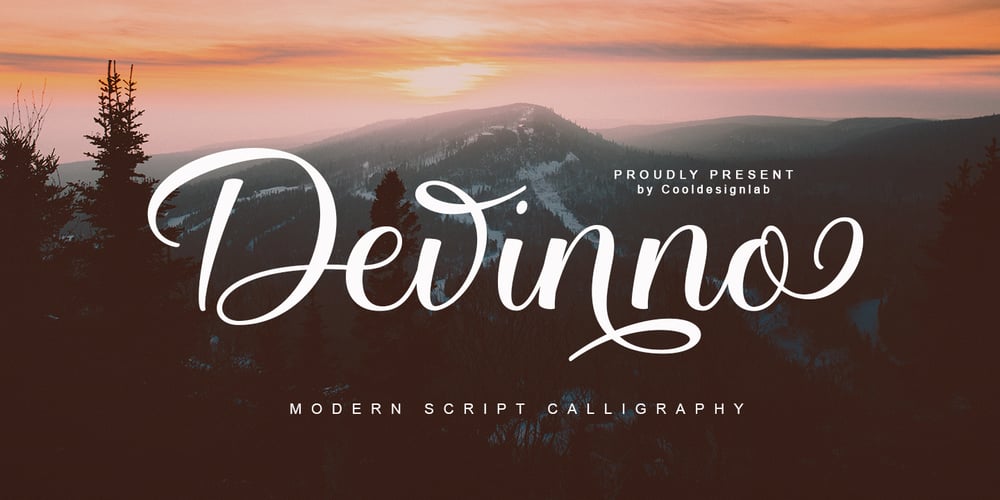
Devinno Script
Devinno Script font
Devinno Script Font Family was designed by Kurniadi Saputra and published by Cooldesignlab. Devinno Script contains 1 styles and family package options. Meet the new slick calligraphy font – Devinno Script. This gorgeous script is for those who need some elegance and style for their designs and is perfect for wedding invitations, save date cards, feminine branding, and other necessities. This font is modern, simple, but still authentic.Devinno Script includes the complete set of Basic Uppercase and Lowercase Characters, Numbers, and Punctuation Marks. It also contains binders and many stylistic alternatives to perfectly recreate natural calligraphy (check the preview to see all of them).Thank you very much for visiting my shop!~ Cooldesignlab